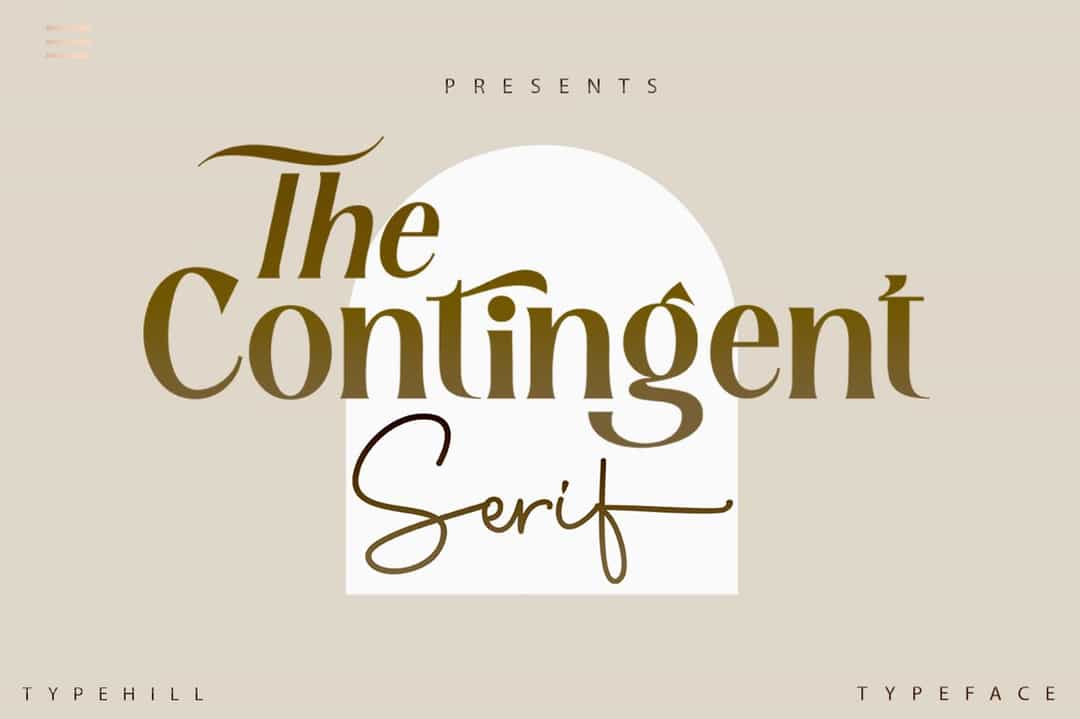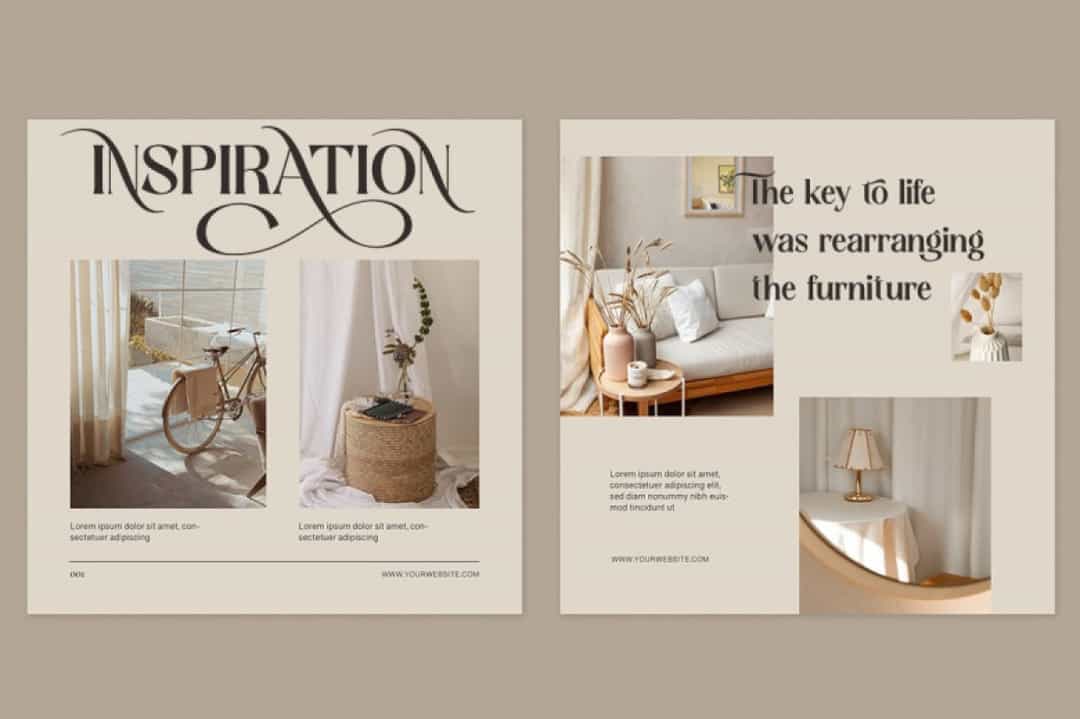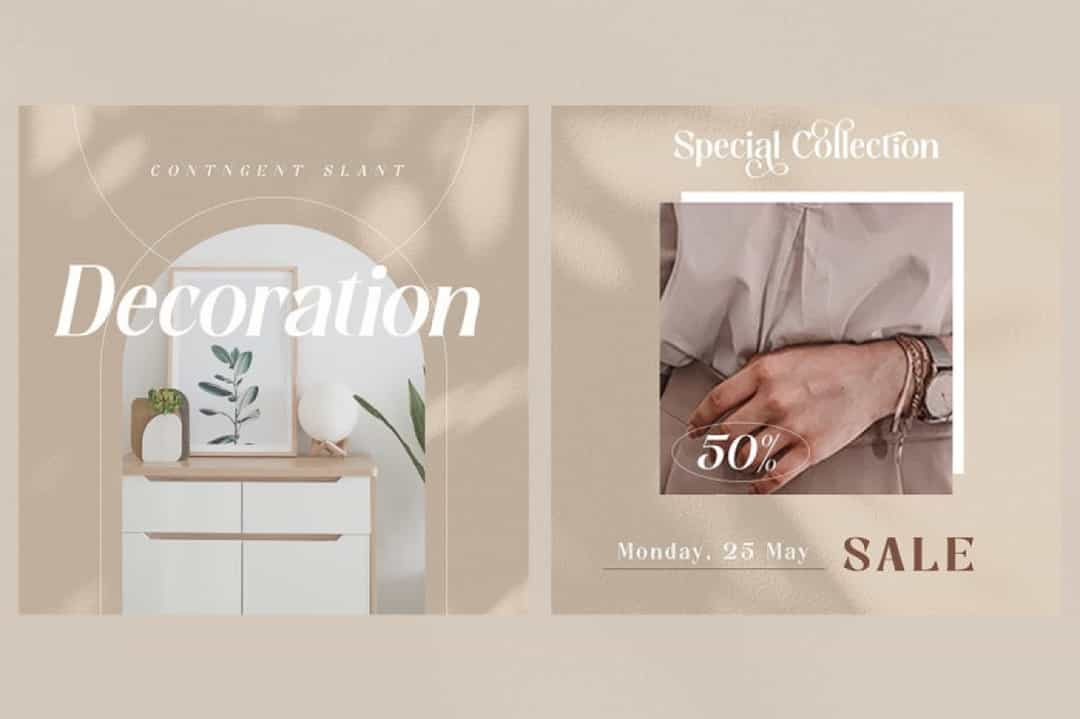
Typehill created the elegant serif font Contingent is to bring aesthetic elegance and smooth curves into modern logo design, branding identity for brands and social media-related quotes, wedding stationery designs, as well as more!